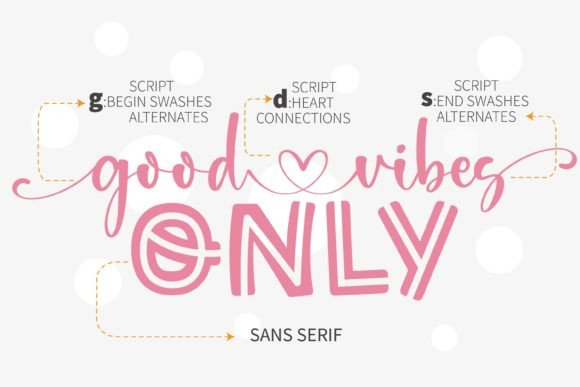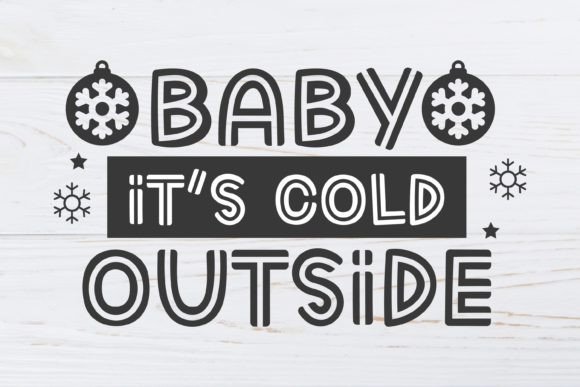
Magic Christmas Duo Font
Magic Christmas is a handwritten duo font (sans display and script). Its natural and unique style makes it incredibly fitting to a large pool of designs. This font is PUA encoded, which means you can access all of the glyphs and swashes with ease!